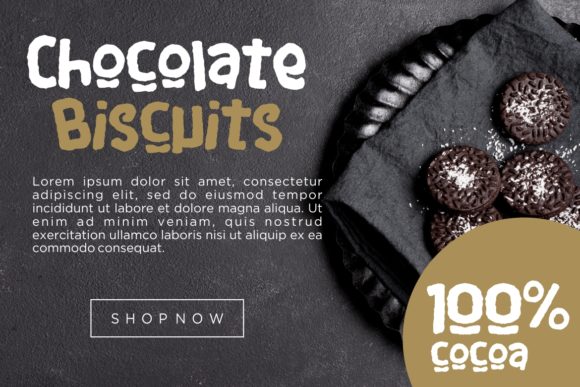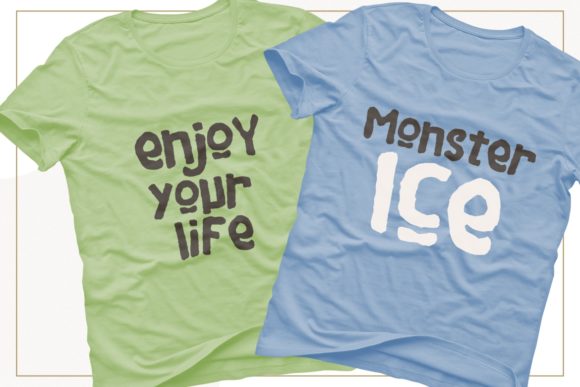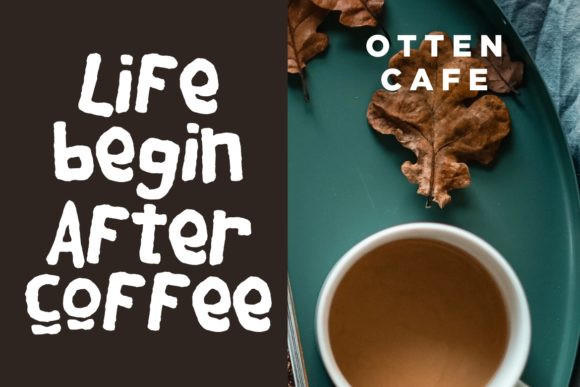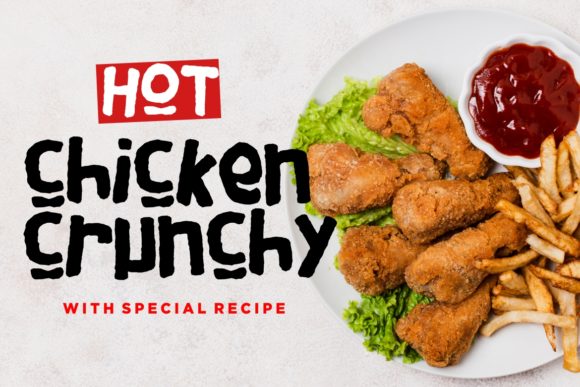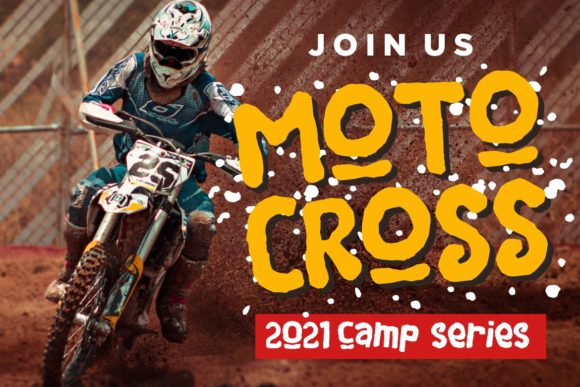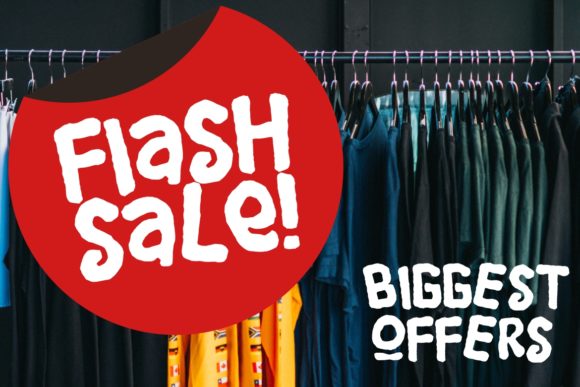
Introduction to Kora Kora Font
Kora Kora is a cute and playful display font with a modern vibe.
It’s bouncy and weird, and will effortlessly add an organic, quirky feel to your next design idea .
Key Features of Kora Kora Font
Why Choose Kora Kora Font?